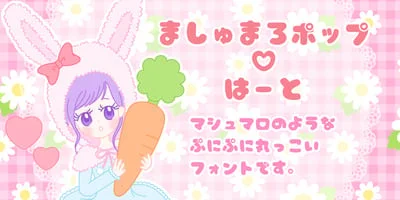
Marsh Mallow Pop Heart Font
Marsh Mallow Pop Heart Font excels in candy branding, children's products, playful invitations, sweet shop signage, kids' party designs, bakery logos, toy packaging, and whimsical creative projects.
Marsh Mallow Pop Heart Font is exciting because it captures the pure joy and sweetness of childhood memories, featuring adorable letterforms that bubble with happiness and innocent charm. This font delivers delightful whimsy with its playful character that brings smiles and warmth to any design project.
Marsh Mallow Pop Heart Font family includes regular, bold, outline, and shadow variations, plus decorative heart elements and candy-inspired ornaments, offering complete sweetness for playful and child-friendly design applications.
Sweeten your designs with Marsh Mallow Pop Heart Font. This delightful typeface embodies pure childhood joy and sugary sweetness, featuring adorable letterforms that seem to bounce off the page with infectious happiness. Perfect for designers creating kid-friendly brands and sweet products, this font delivers irresistible charm with professional quality that appeals to both children and adults.
The lovingly crafted characters showcase rounded, bouncy proportions that evoke the soft texture of marshmallows and the joy of candy stores. Each letter demonstrates playful creativity while maintaining excellent readability, making it ideal for both large-scale signage and intimate packaging designs.
Whether you're designing candy shops, children's entertainment brands, or sweet celebration materials, Marsh Mallow Pop Heart Font provides the sugar-coated charm your projects need. This versatile typeface transforms ordinary text into delightful experiences that capture the magic of childhood wonder and the universal appeal of sweetness, making it an essential tool for designers who specialize in creating joyful, heart-warming brand experiences.